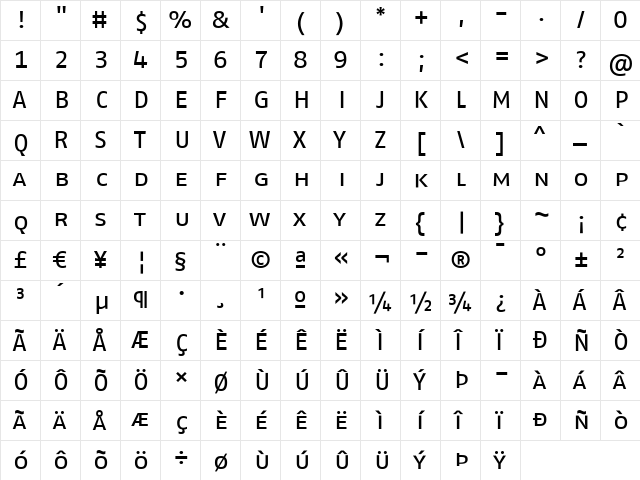
FagoExTf Regular
Design Context for FagoExTf Typeface
FagoExTf takes a measured approach to typography — its balanced proportions and neutral character make it a reliable workhorse for both digital and print work.
Pro Tip: Pair FagoExTf with a font of contrasting weight or personality to build a more expressive typographic hierarchy.